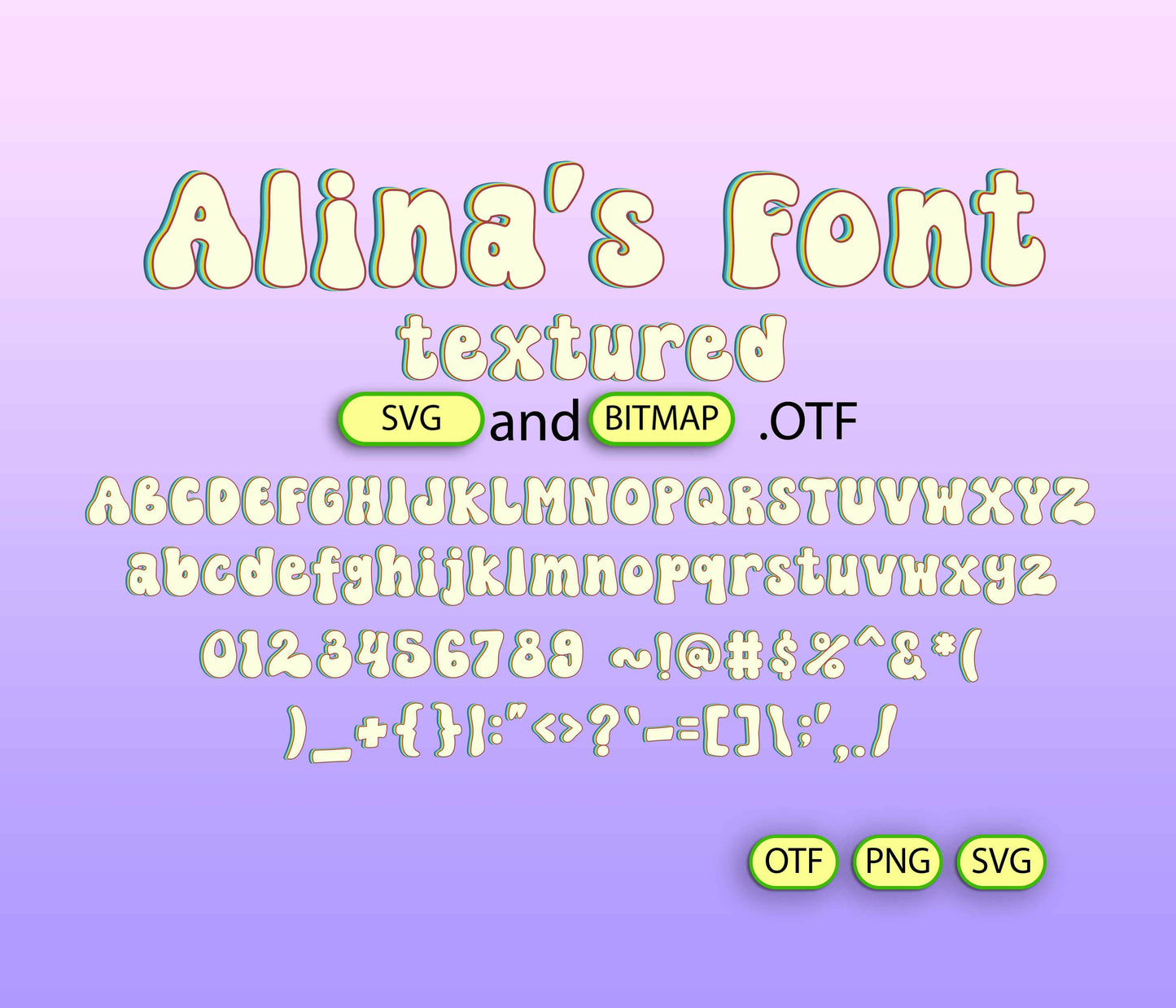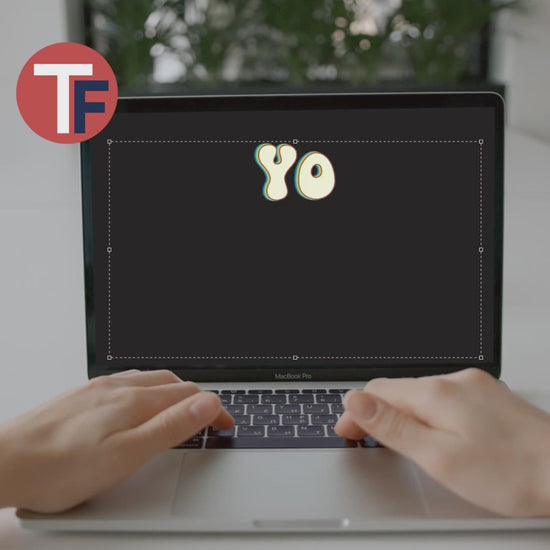
Groovy Retro Vibe Font Textured
Dive into the vibrant and dynamic era of the '60s and '70s with our Groovy font, a tribute to the iconic style that defined a generation. This font captures the essence of the groovy movement, characterized by its bold, fluid, and psychedelic aesthetics. Each character in the Groovy font is designed to echo the free-spirited and upbeat vibe of this era, making it perfect for projects that aim to evoke nostalgia and the energetic optimism of these decades.
What Font is Groovy Font?
Imagine a typeface that encapsulates the dynamic, flowing, and bold aesthetics of the groovy era. Our font is meticulously designed to mirror the distinctive style of the 60s and 70s, with an emphasis on fluid curves, exaggerated forms, and playful lines. It includes an extensive character set, featuring alphabets, numbers, and special symbols, providing a comprehensive solution for designs that require a touch of retro flair and psychedelic vibes.
What Can You Do With Groovy Font?
The Groovy font is versatile and ideal for a variety of applications:
- Retro Themed Events: Create invitations and signage for parties or events with a 60s or 70s theme.
- Fashion and Apparel Design: Perfect for designing clothing, accessories, and merchandise that resonate with the retro style.
- Music and Album Artwork: Enhance album covers, posters, and promotional materials for music with a vintage feel.
- Digital Content and Social Media: Use the font to add a retro touch to websites, blogs, and social media posts.
- Branding and Marketing: Incorporate the font into branding and marketing materials for products or businesses with a vintage aesthetic.
- Interior Decor and Signage: Design wall art, decals, or restaurant/café signage with a groovy theme.
- Editorial Design: Use in magazines, brochures, and publications that require a touch of 60s or 70s nostalgia.
- Event Promotion: Craft eye-catching promotional materials for film screenings, art exhibitions, or cultural events celebrating the era.
- Stationery and Greeting Cards: Design personalized stationery or greeting cards with a fun, retro vibe.
- Creative Projects and DIY: Ideal for scrapbooking, crafting, and artistic projects inspired by the groovy era.
- Textured and FREE Non-Textured Variants: Each font is available in both a playful, textured style reminiscent of the 60s and 70s, and a clean, non-textured version for a more versatile use.
- Comprehensive Character Set: Offers a wide range of characters for complete design flexibility.
The Groovy-inspired font is more than just a typeface; it's an embodiment of the vibrant and expressive style of the 60s and 70s.